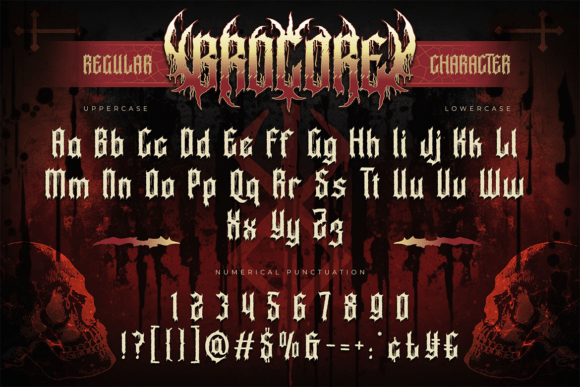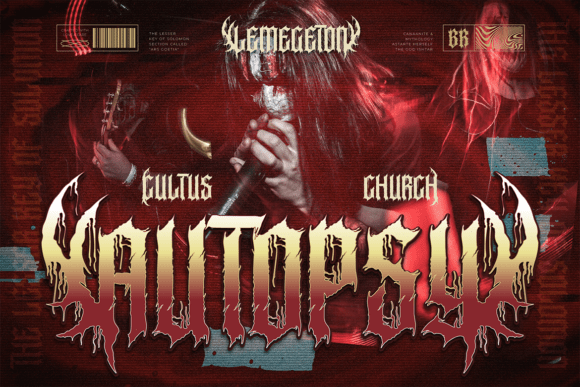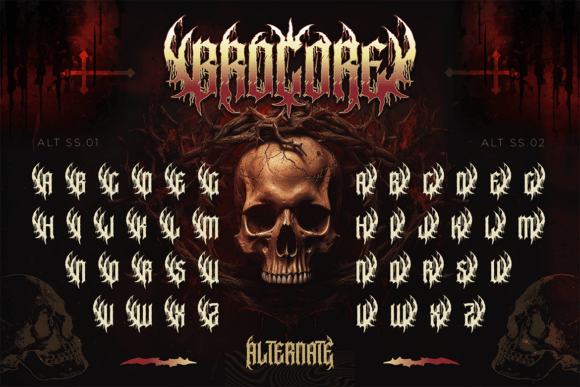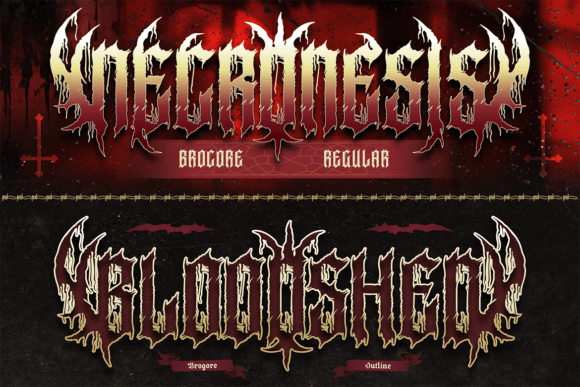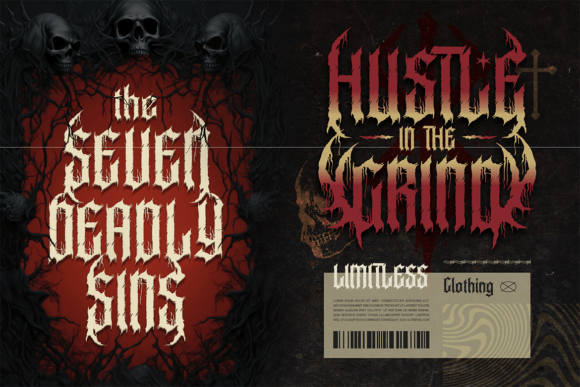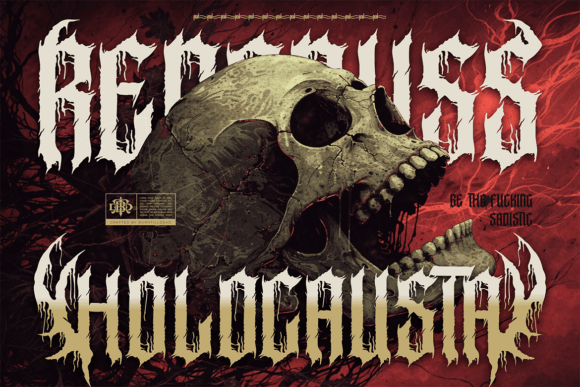
Unleash the Fury: Introducing Brocore Font – The Ultimate Choice for Extreme Visuals
Are you a designer or crafter looking for a typeface that embodies the spirit of darkness and rebellion? Look no further than Brocore Font, a brutal death metal blackletter typeface designed specifically for extreme visuals. Inspired by the raw energy of underground metal logos, gothic lettering, and dark horror aesthetics, Brocore is the perfect choice for projects that demand a bold and unapologetic vibe.
The Essence of Brocore
Brocore is more than just a font – it’s an attitude, a statement, and a declaration of rebellion. Each letter is carefully crafted with dramatic spikes, dripping edges, and a strong gothic structure, making it the ideal choice for heavy branding and high-impact typography. The font comes in two styles: Regular and Outline, giving you the flexibility to experiment with different designs and creative expressions.
Features and Flexibility
Brocore is designed to provide maximum creative freedom for designers and crafters. The font features:
- A comprehensive A-Z set (uppercase and lowercase)
- Numbers and punctuation
- Alternate characters to experiment with different styles
- Ligatures to add a touch of sophistication
- Multilingual support for global designs
Perfect for Extreme Projects
So, what kind of projects is Brocore perfect for? The answer is simple: any project that demands a dark, intense, and rebellious vibe. Some examples include:
- Death metal and black metal band logos
- Album covers and music posters
- Festival and gig flyers
- Streetwear and merch design
- Tattoo-inspired artwork
- Horror movie titles
- Dark branding and edgy packaging
Why Choose Brocore?
In a world where typography plays a crucial role in visual communication, Brocore stands out as a bold and fearless choice. Here are just a few reasons why designers and crafters are drawn to this incredible font:
- Unique and Memorable: Brocore’s dramatic spikes and gothic structure make it instantly recognizable and memorable.
- Versatile: With Regular and Outline styles, alternate characters, and ligatures, Brocore offers endless creative possibilities.
- High-Impact: This font is designed to make a statement, perfect for projects that demand attention and attitude.